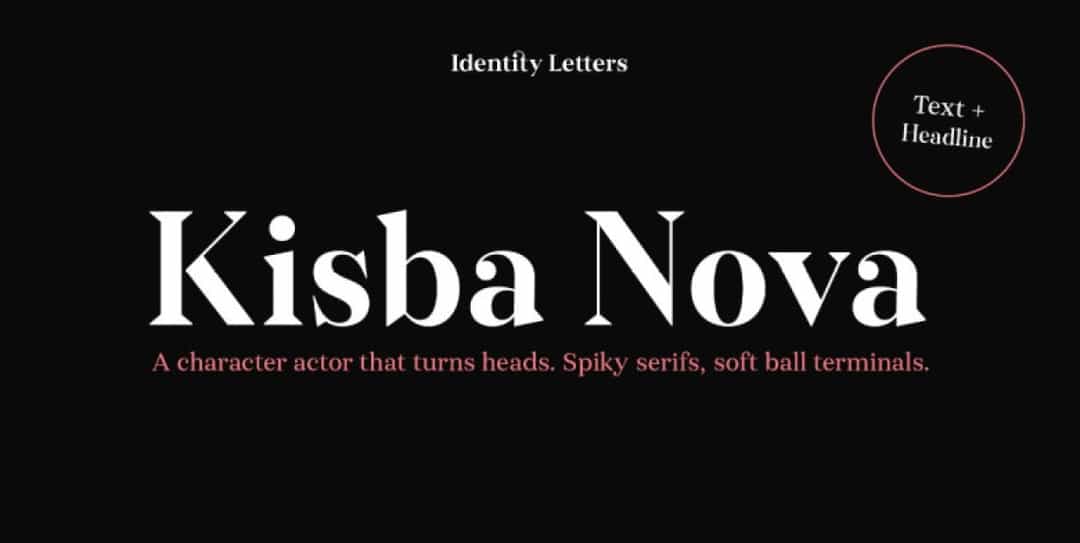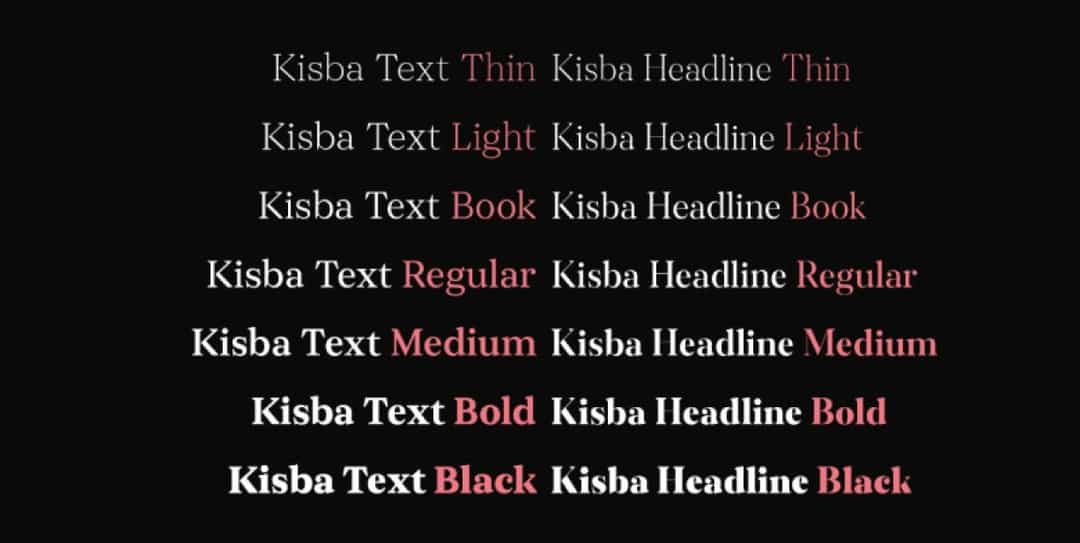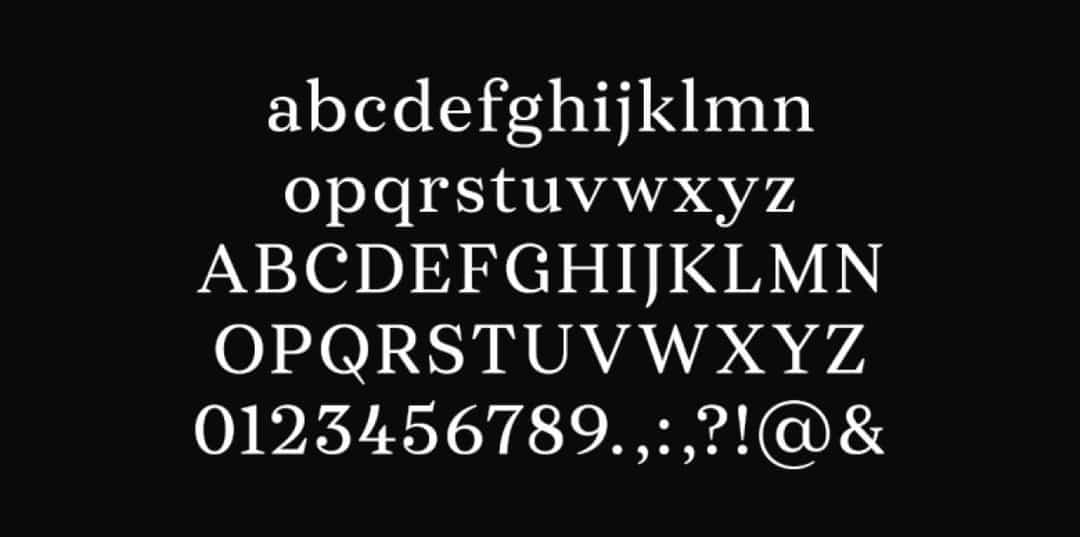
Kisba Nova Font is one of those guests that add an atmosphere of charisma to any gathering, talking nonstop throughout. Kisba Nova draws people in with its contrasts: sharp wedge serifs combine with spikey spurs for maximum visual impact; this combination combined with classic neoclassical stroke contrast creates an irresistibly captivating font driven by extreme visuals.